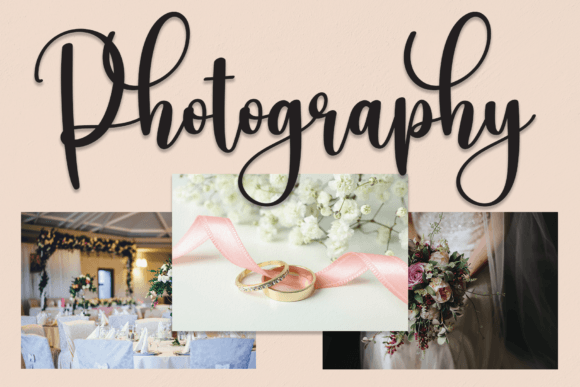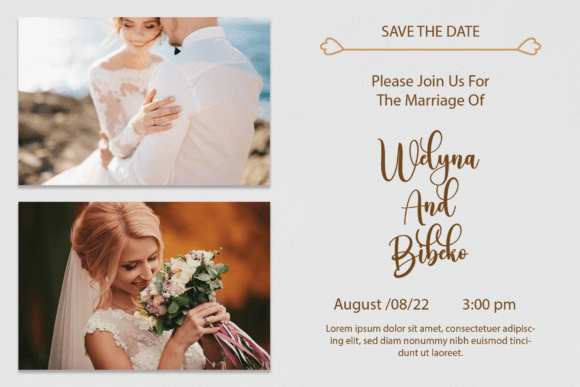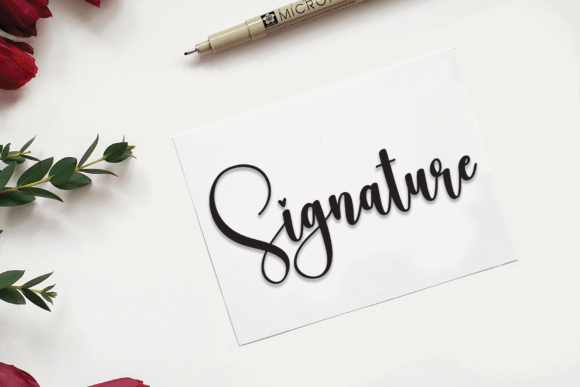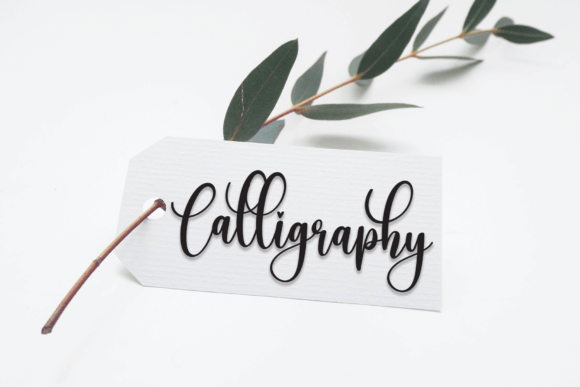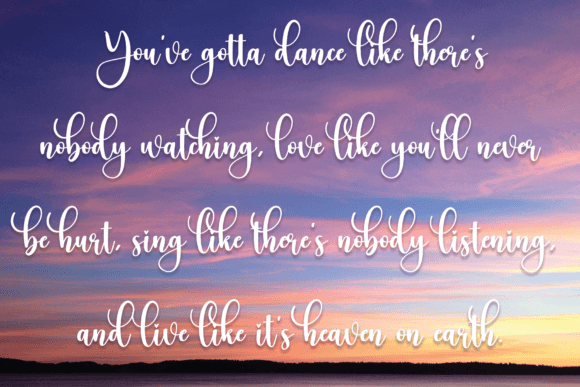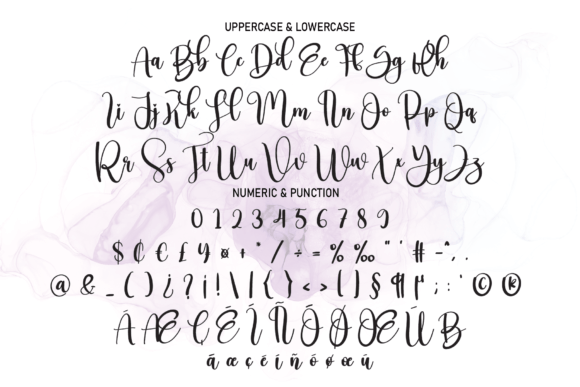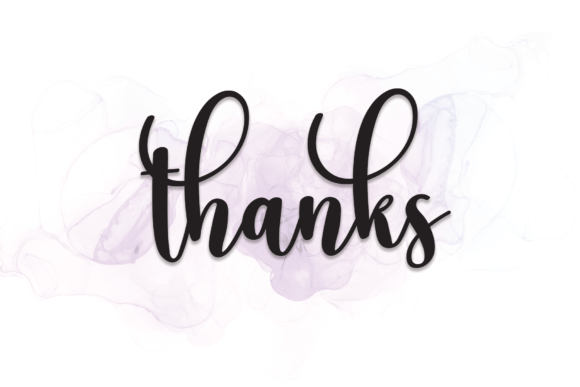
Anyone Font
About Anyone Font
The most recent style of this font features letters that are impeccably suited for a diverse range of creative applications. Whether you’re envisioning compelling wall displays, crafting elegant wedding invitations, designing eye-catching social media post logos, or developing persuasive advertisements, the latest style of this font is a versatile and essential choice for designers.
In the realm of product packaging and design, these letters bring a contemporary and personalized touch to labels, product designs, and overall packaging aesthetics. For photographers, this font becomes a valuable tool for watermarking, seamlessly integrating a handwritten taste into the visual identity of images.
The font’s adaptability gracefully extends to invitations and stationery, where each letter contributes to an atmosphere of warmth and individuality. Whether applied to a personalized label, a captivating social media post, or refined product packaging, the latest style of this font imparts a distinct handwritten charm that elevates the overall visual appeal of any project.
Imagine these letters gracing a wedding invitation, where their stylish strokes add a touch of romance and sophistication. Visualize them in a social media post logo, capturing the essence of uniqueness and creativity. Envision the font seamlessly integrated into product packaging, enhancing the consumer’s experience with a personalized and tasteful touch.
In the vast landscape of design, the latest style of this font transcends mere typography; it becomes a pivotal design element that transforms ordinary projects into extraordinary ones. Its contemporary aesthetic ensures relevance across diverse creative endeavors, while its handwritten charm adds a layer of authenticity and creativity.
Whether you’re a graphic designer shaping advertisements, a soon-to-be-wed crafting the perfect wedding invitation, or a business owner striving for distinctive product designs, the latest style of this font opens the door to a realm of creative possibilities. With each letter, it injects a handwritten taste that breathes life into your projects, leaving a lasting and memorable impression.